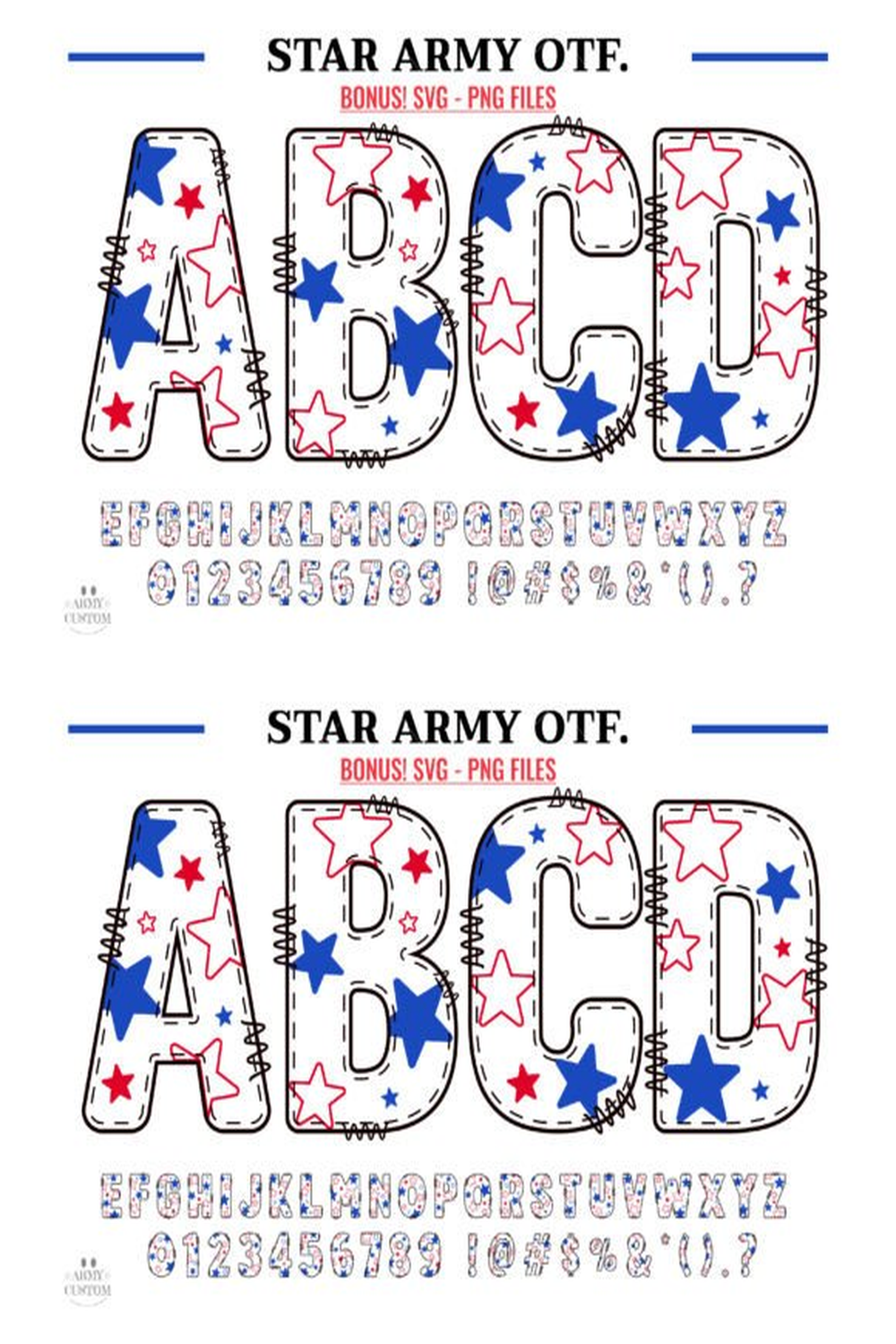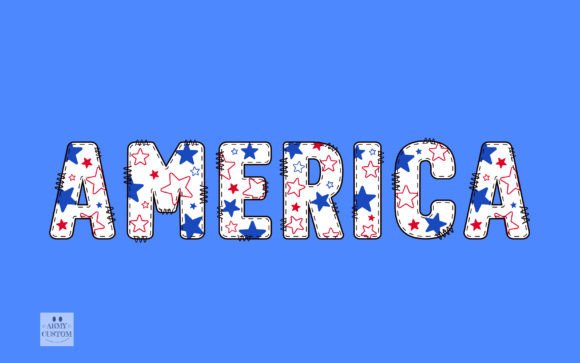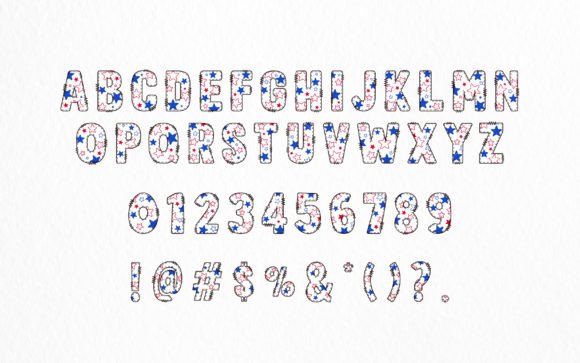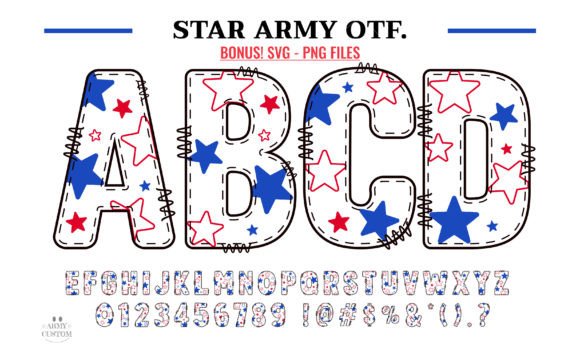
Star Army Font
About the Star Army Font
Make a bold statement with Star Army Font, a powerful and memorable font. Experience a taste of Americana with the uniquely inspired American Font. This one-of-a-kind typeface personifies the grace and strength of the Stars and Stripes, channeling the spirit of the American flag into each individual character. A perfect fusion of design and patriotism, this font is a testament to the courage, unity, and freedom represented by the USA. Embrace your patriotic side with the quintessentially American Font.